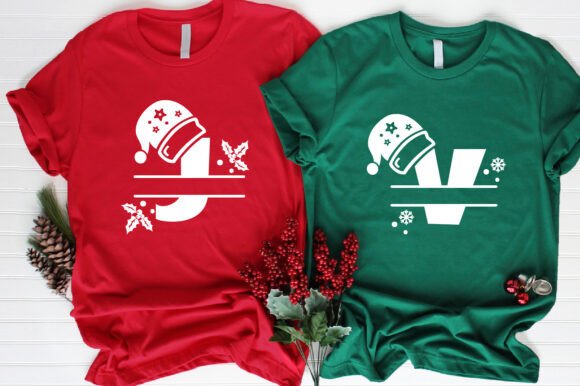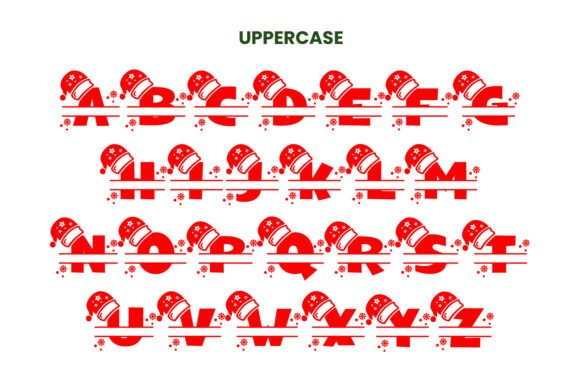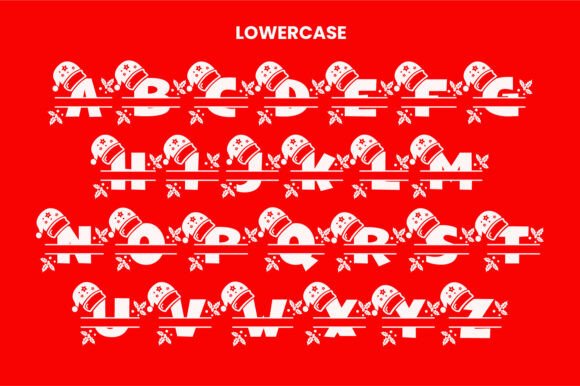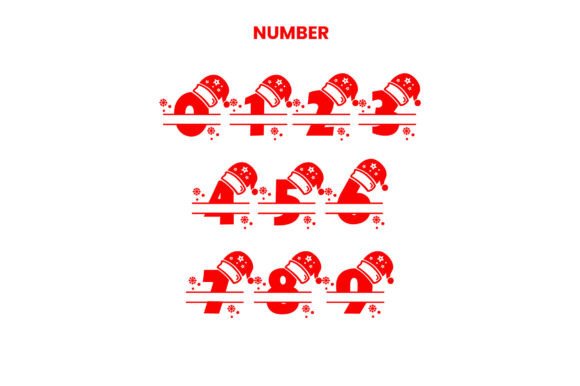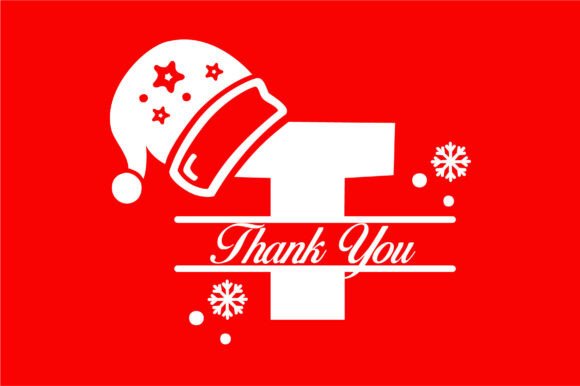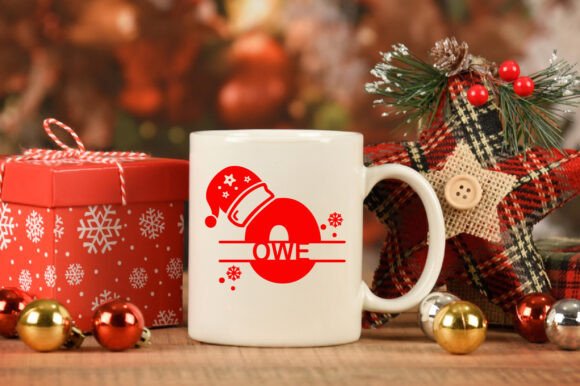
Introduction to Big Santa Hat Font
Big Santa Hat is a festive and decorative Christmas font that features bold uppercase letters adorned with cute Santa hats and holly accents.
Perfect for adding holiday cheer to your projects, itโ€™s ideal for crafting, gift tags, holiday cards, t-shirt designs, and more festive creations .
Key Features of Big Santa Hat Font
Why Choose Big Santa Hat Font?
Big Santa Hat Font offers exceptional quality and versatility, making it a valuable addition to your design toolkit. Whether you’re creating for personal projects or commercial use, Big Santa Hat Font delivers professional results.